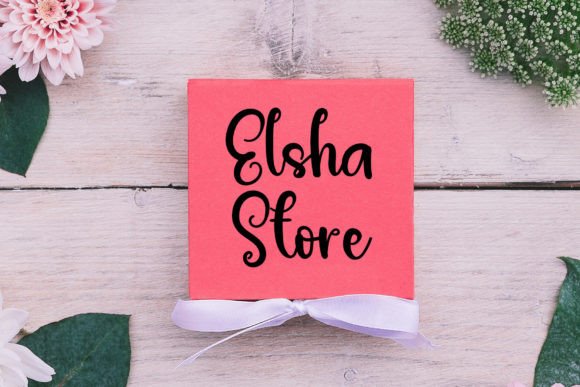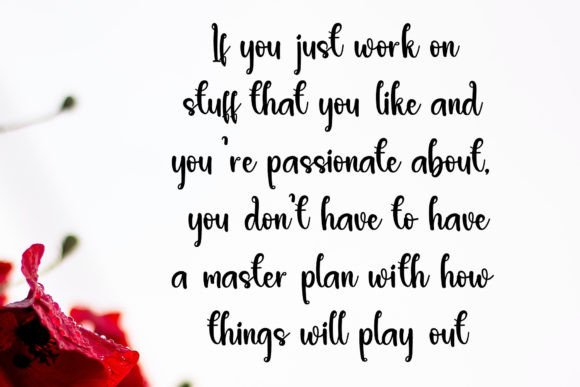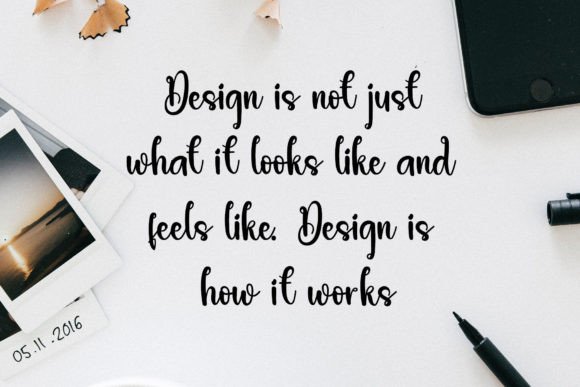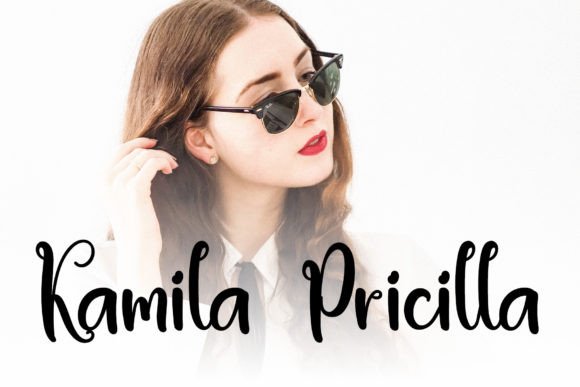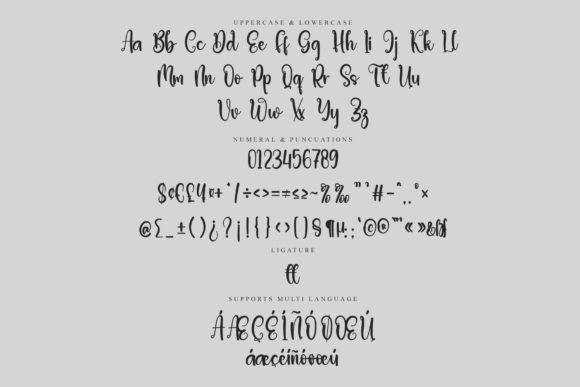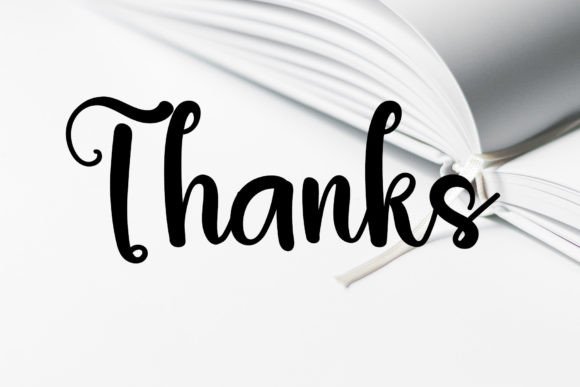
Introduction to Handover Font
Do you ever find yourself rummaging through your design files, searching for the perfect font to add a touch of whimsy to your latest project? For designers, this is a common creative conundrum. But what if you stumbled upon a font that effortlessly brings a smile to your face and elevates your design to the next level? Welcome to the world of Handover Font, a sweet and cursive handwritten font that’s sure to become your new go-to design resource.
With its high-quality design and transparent background, Handover Font is perfect for a wide range of creative projects. Whether you’re working on a branding campaign, designing a wedding invitation, or creating a lookbook for your fashion brand, this font is sure to add a romantic touch that will leave your audience swooning. And the best part? You can download it for free, making it an invaluable addition to your design arsenal.
As a designer, you understand the importance of having a versatile and high-quality design resource at your fingertips. Handover Font is just that – a reliable and beautiful font that will elevate your designs and make them stand out from the crowd. So why wait? Discover the magic of Handover Font today and take your creative projects to new heights!
Key Features of Handover Font
- High-quality vector design with a transparent background, making it easy to use in various creative projects.
- Perfect for use in logos, icons, graphics, and other visual elements, thanks to its versatility and high-quality design.
- Comes in a variety of sizes, from small to large, allowing designers to customize the font to fit their specific needs.
- Designed to be easily scalable, ensuring that the font remains clear and legible even at large sizes or when used in high-resolution displays.
- Unique characteristics include a modern and sleek aesthetic, making it an ideal choice for contemporary and creative projects.
Honest Review: Handover Font
I recently had the chance to work with the Handover Font, and I have to say, it’s been a game-changer for my creative projects. ✨
- High-Quality Typography: The Handover Font offers crisp, clear typography that’s perfect for any design project. Whether you’re working on a brochure, business card, or website, this font is sure to impress.
- Transparent Background: One of the standout features of the Handover Font is its transparent background, which makes it incredibly versatile and easy to use.
However, I did encounter a few limitations during my testing. ⚠️
- Limited Character Set: The Handover Font has a limited character set, which can make it difficult to use for certain types of projects.
- Not Ideal for Small Text: The font can become a bit difficult to read when used for small text, so be sure to test it out at different sizes before committing to a design.
Overall, I’m really impressed with the Handover Font. While it may have a few limitations, its high-quality typography and transparent background make it a valuable addition to any designer’s toolkit. If you’re looking for a reliable, easy-to-use font for your creative projects, the Handover Font is definitely worth checking out.